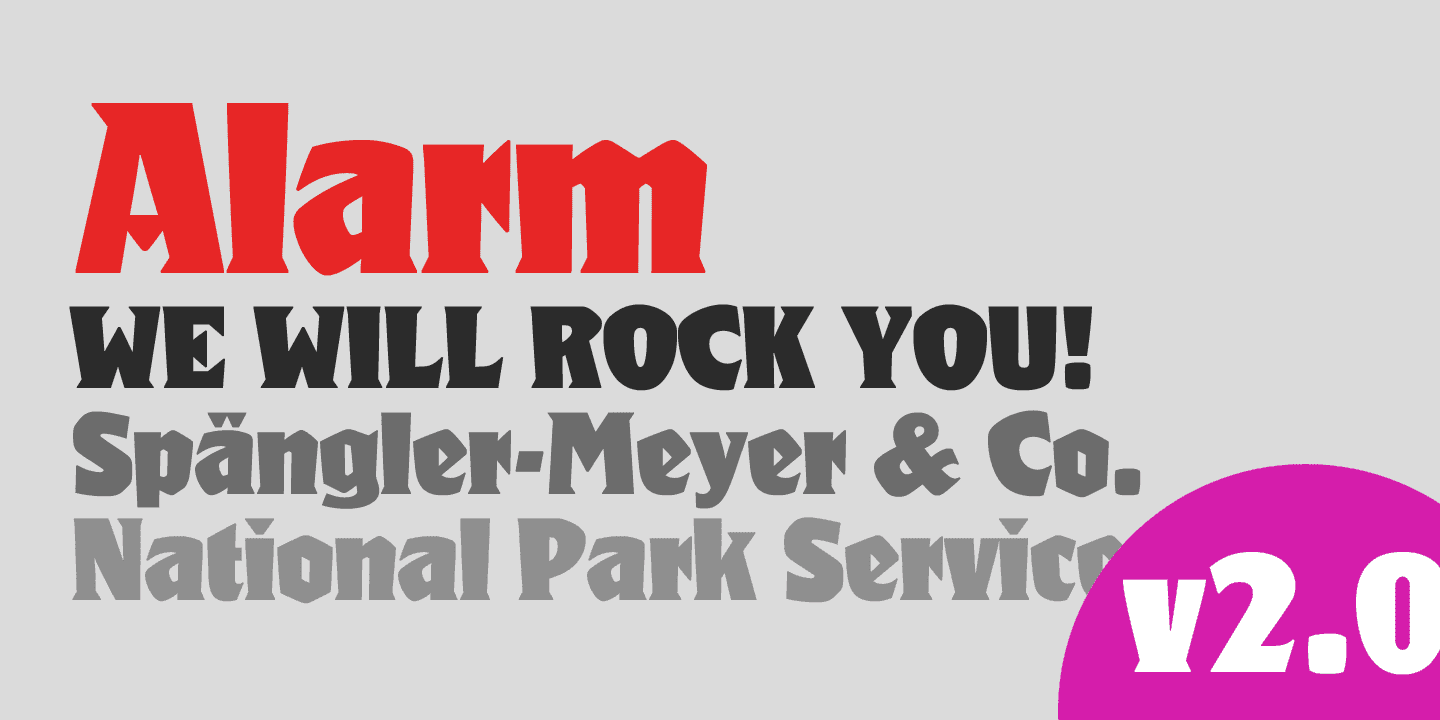
Alarm
Designed by Andreas Seidel and Heinz Konig, Alarm is a hand display font published by Astype.
Alarm was published in 1928 by the Trennert typefoundry in Hamburg-Altona. One of the last designs by freelancer Heinz König, it did not enter the digital realm until 2017. Andreas Seidel digitized the typeface for Fust & Friends.
Released 2017
Designers Andreas Seidel, Heinz Konig